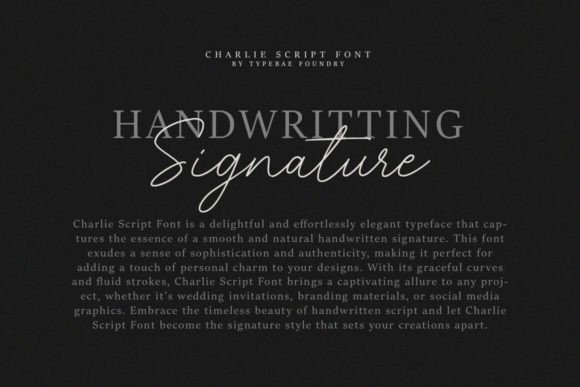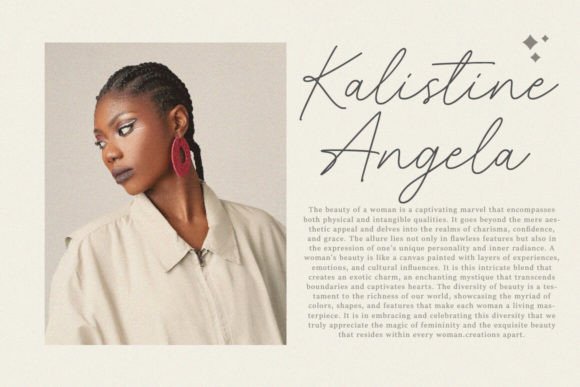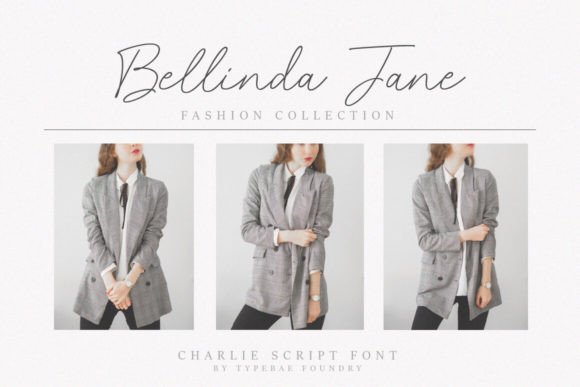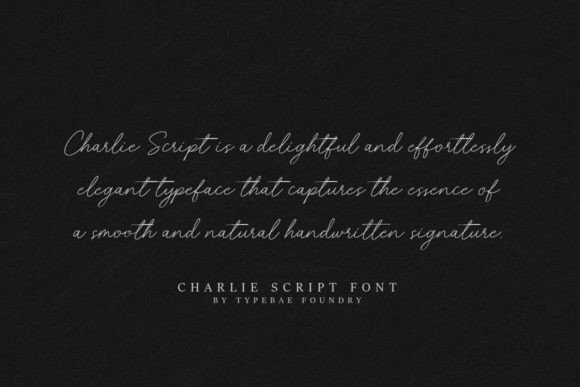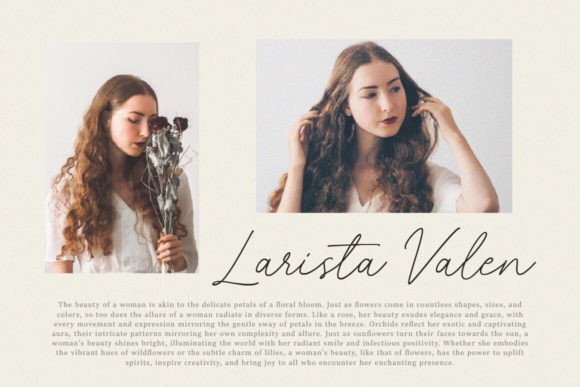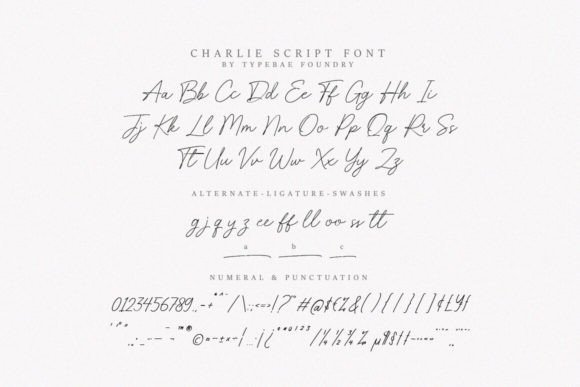
Introducing Charlie Script Font: Elevate Your Designs with Effortless Elegance
In the world of typography, few fonts manage to capture the essence of natural, handwritten elegance as effortlessly as Charlie Script Font. This delightful typeface is designed to bring a touch of sophistication and personal charm to your designs, making it an ideal choice for crafters, designers, and anyone looking to add a unique flair to their projects.
The Beauty of Handwritten Script
Handwritten script fonts have a timeless appeal that digital fonts often strive to replicate. Charlie Script Font, however, stands out by offering a remarkably smooth and natural appearance that mimics the fluidity of a genuine handwritten signature. Each letter is crafted with care, ensuring that the font exudes warmth and authenticity, making it perfect for a wide range of applications, from wedding invitations and branding to packaging and digital media.
Key Features of Charlie Script Font
- Elegant and Sophisticated: Charlie Script Font embodies a sense of elegance and sophistication that is hard to find in other script fonts. Its smooth lines and natural flow make it instantly recognizable and appealing.
- Versatile and Adaptable: Whether you’re working on a digital project or a print design, Charlie Script Font proves to be incredibly versatile. Its adaptability makes it suitable for a variety of mediums, ensuring that your designs maintain their elegance and coherence across different platforms.
- Perfect for Personal and Professional Projects: Charlie Script Font is not just limited to professional use; it’s also perfect for personal projects. Whether you’re creating handmade cards, crafting unique party invitations, or simply looking to add a personal touch to your digital communications, this font provides the perfect blend of formality and friendliness.
How to Use Charlie Script Font in Your Designs
- Pair it with Complementary Fonts: For maximum impact, pair Charlie Script Font with sans-serif or serif fonts that complement its elegant style. This will help create a balanced and visually appealing design.
- Experiment with Ligatures and Glyphs: Take full advantage of the PUA encoding by exploring the font’s ligatures and glyphs. These can add a unique touch to your designs and help you create truly one-of-a-kind pieces.
- Adjust Size and Color: Don’t be afraid to experiment with different sizes and colors. Charlie Script Font maintains its elegance across various sizes, and the right color can enhance its natural beauty.
Why Choose Charlie Script Font?
In a sea of digital fonts, Charlie Script Font stands out for its unique blend of elegance, versatility, and user-friendliness. Here are a few reasons why it’s becoming a favorite among designers and crafters:
- Unique and Memorable: Charlie Script Font offers a distinctive look that can help your designs stand out. Its memorable appearance ensures that your projects leave a lasting impression.
- Time-Saving: With its PUA encoding and extensive feature set, Charlie Script Font can significantly streamline your design process. This allows you to focus on creativity rather than technicalities.
- Support for Various Languages: As a well-designed script font, Charlie Script offers support for multiple languages, making it a great choice for international projects or for designers working with a global clientele.
| Font Name | Charlie Script Font |
| Author | Typebae |
Charlie Script Font is more than just a typeface; it’s a design statement. Its smooth, natural elegance and sophisticated charm make it the perfect choice for designers and crafters looking to add a personal touch to their creations. With its PUA encoding for easy access to glyphs and ligatures, versatility across different mediums, and adaptability for both personal and professional projects, Charlie Script Font is poised to become your go-to script font for a wide range of applications. Embrace the timeless beauty of handwritten script and let Charlie Script Font become the signature style that sets your designs apart.